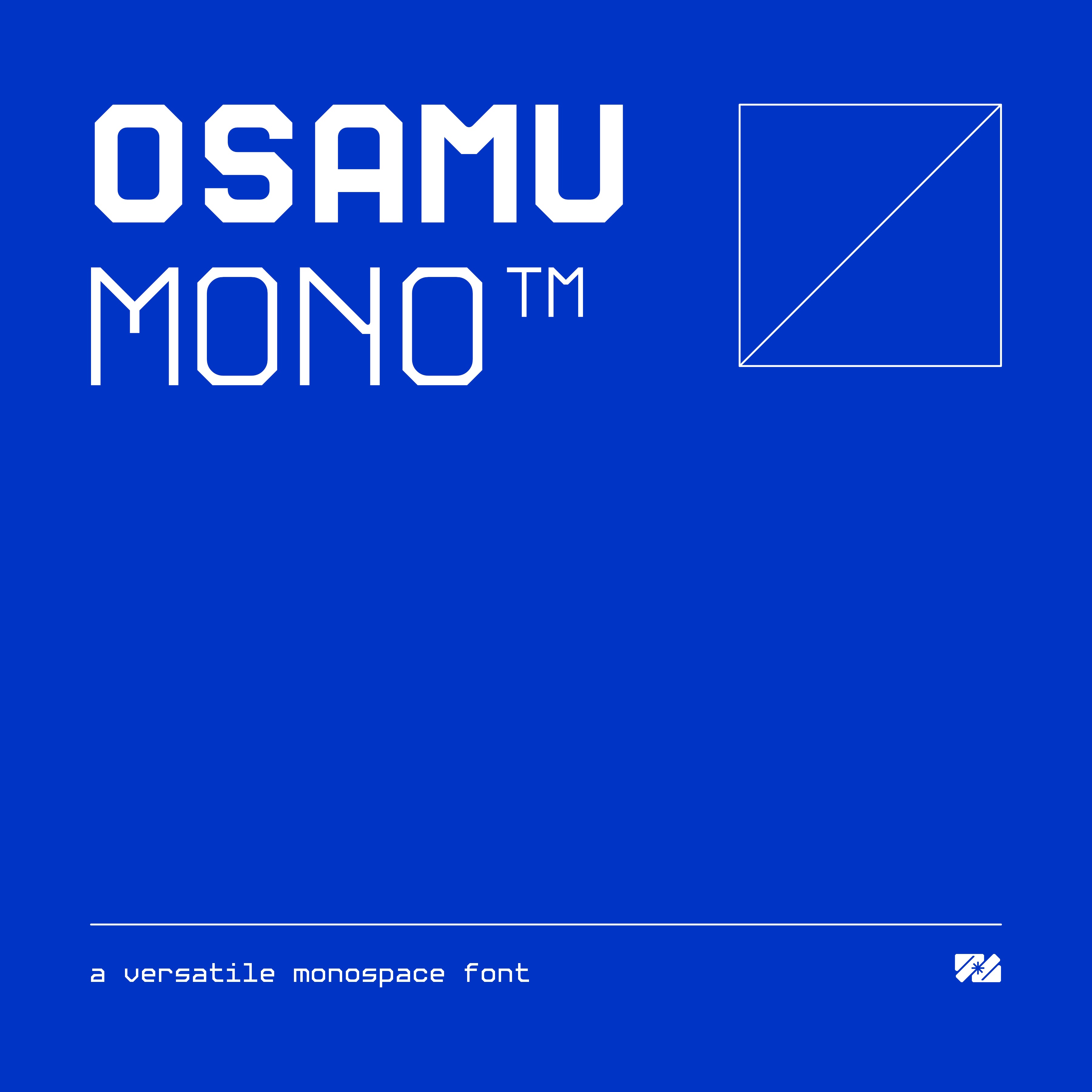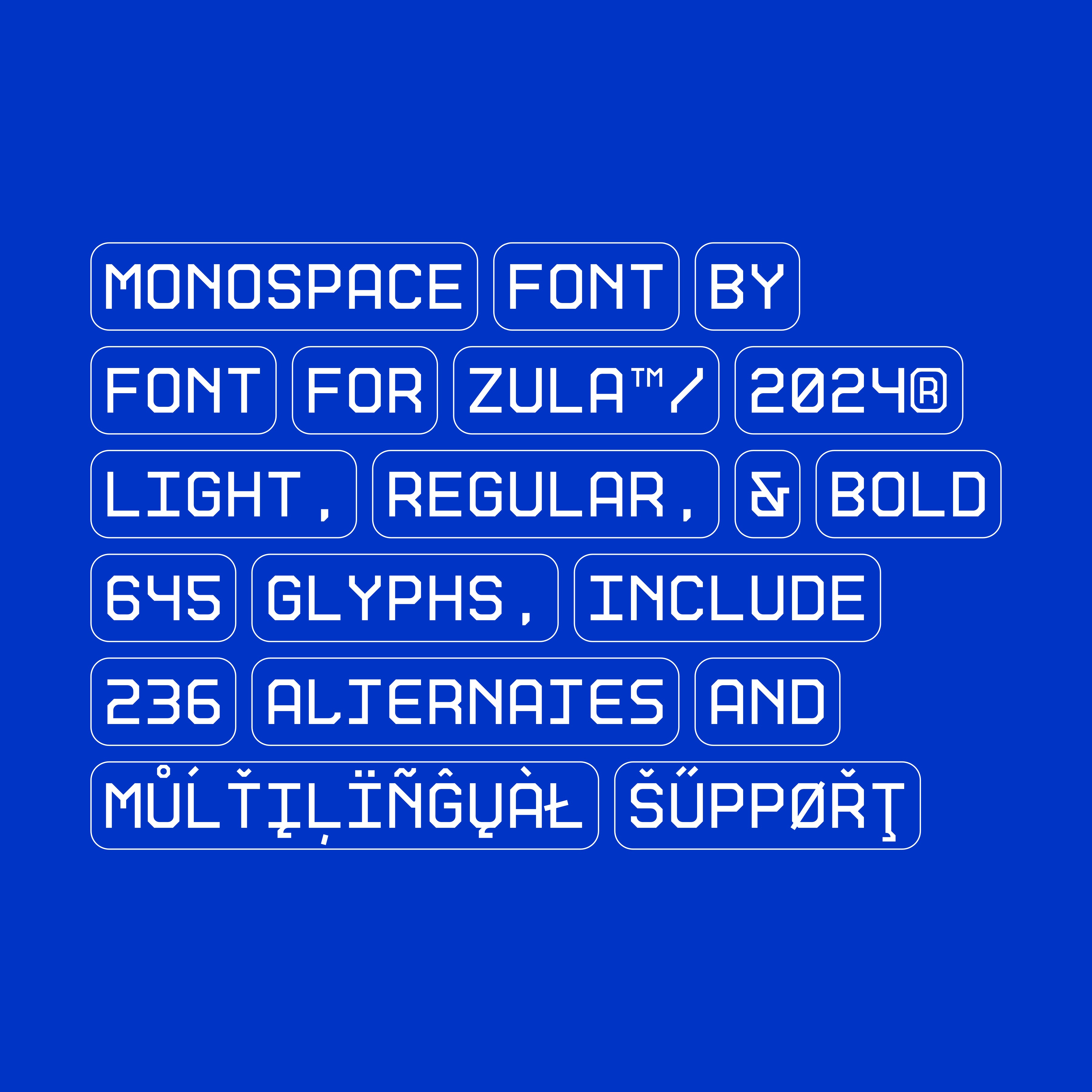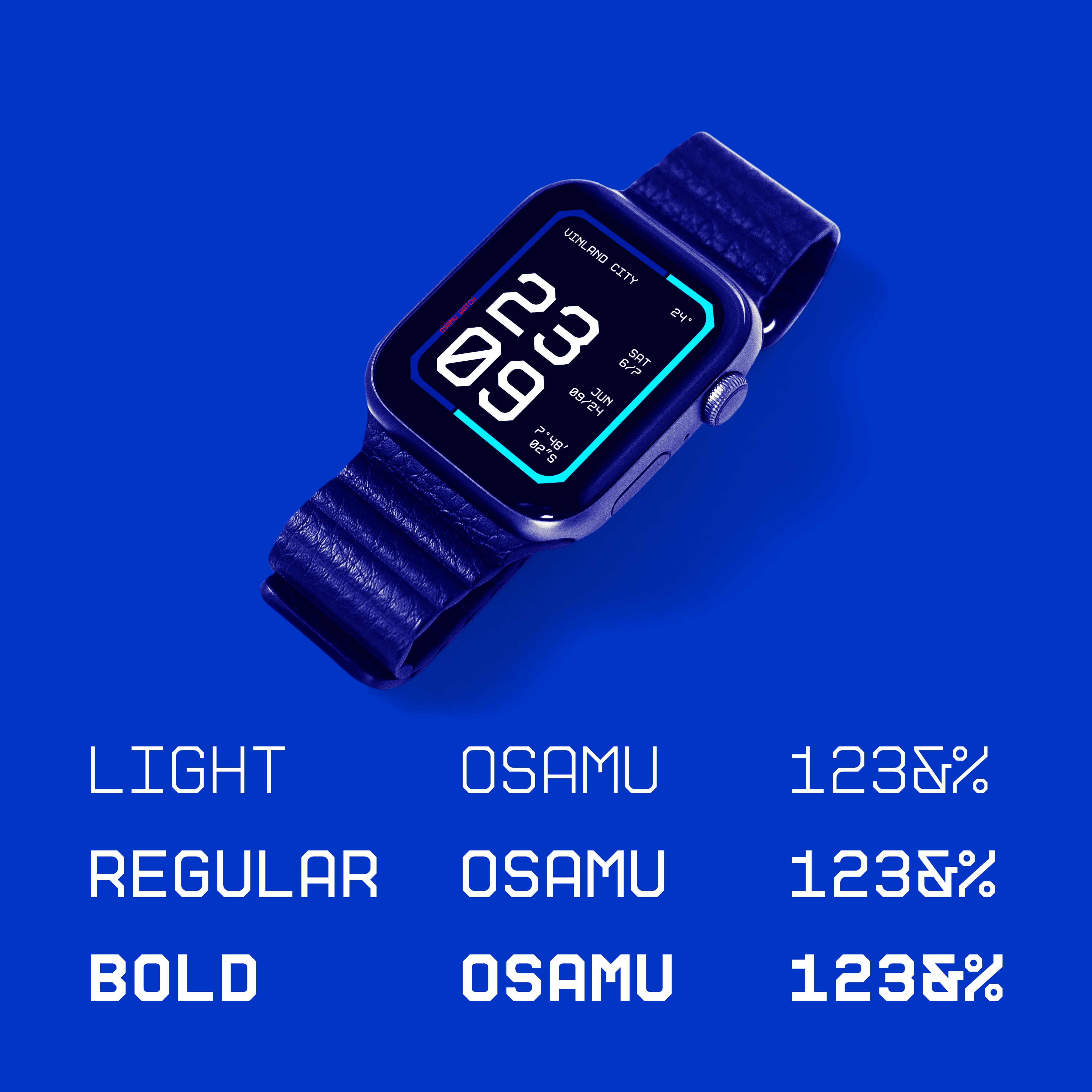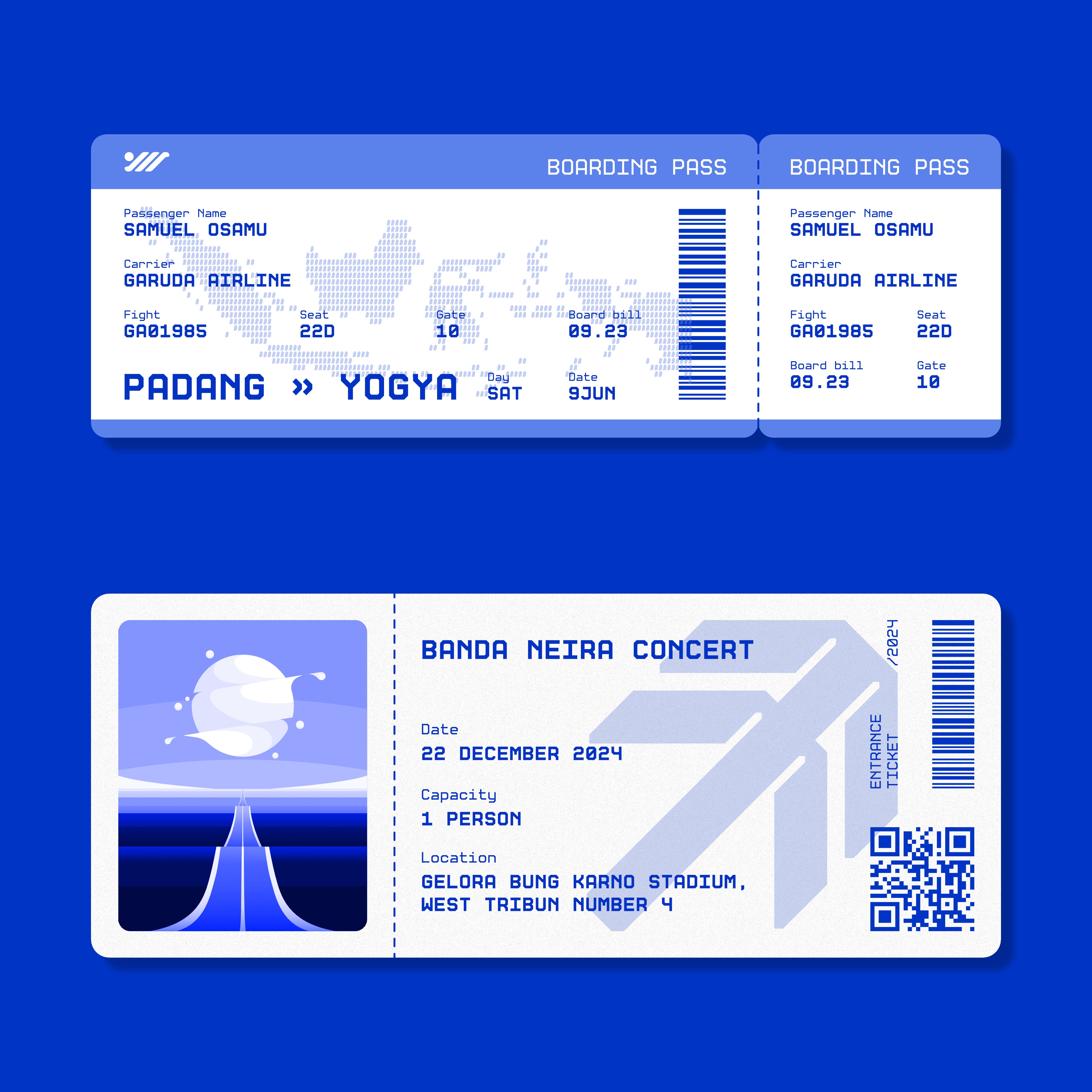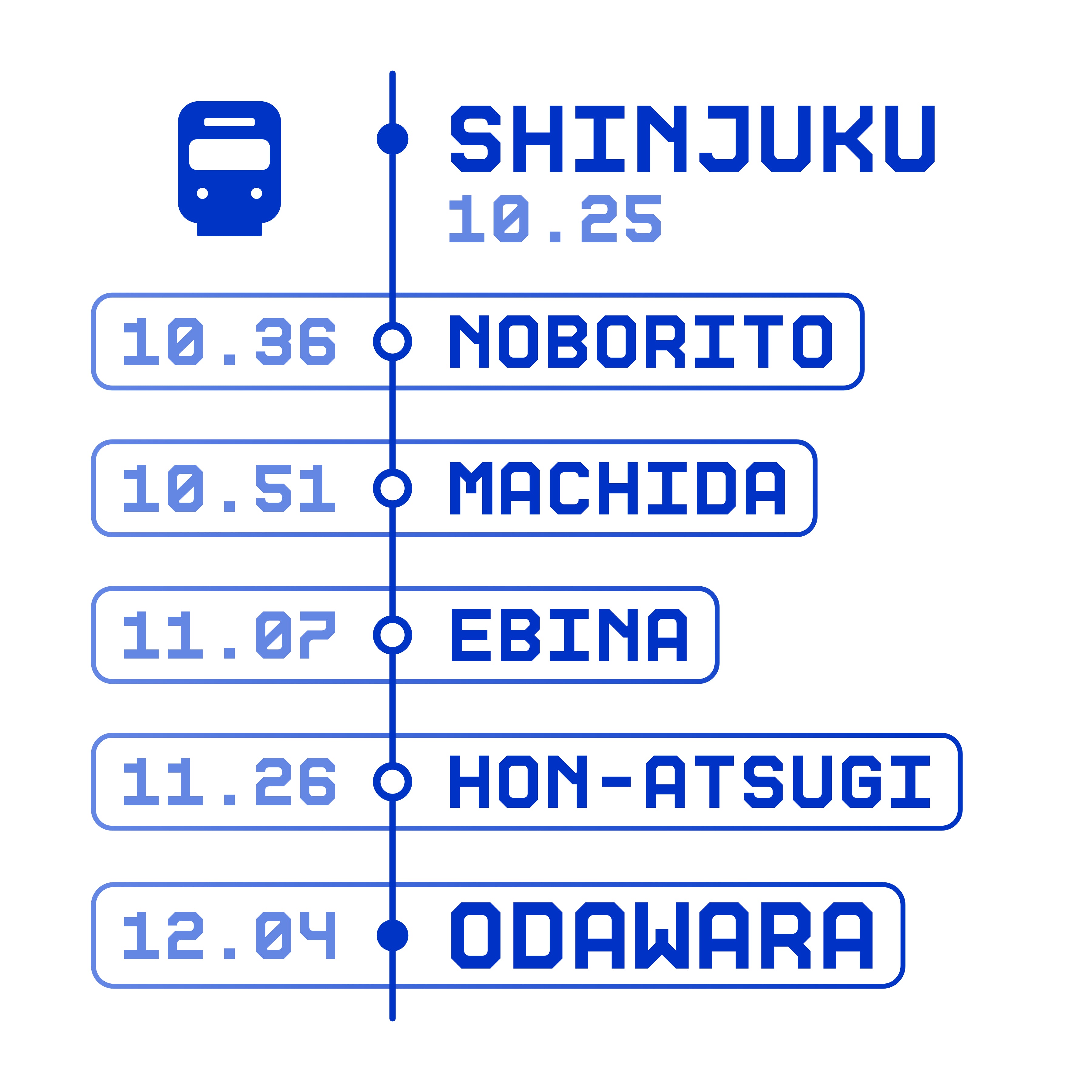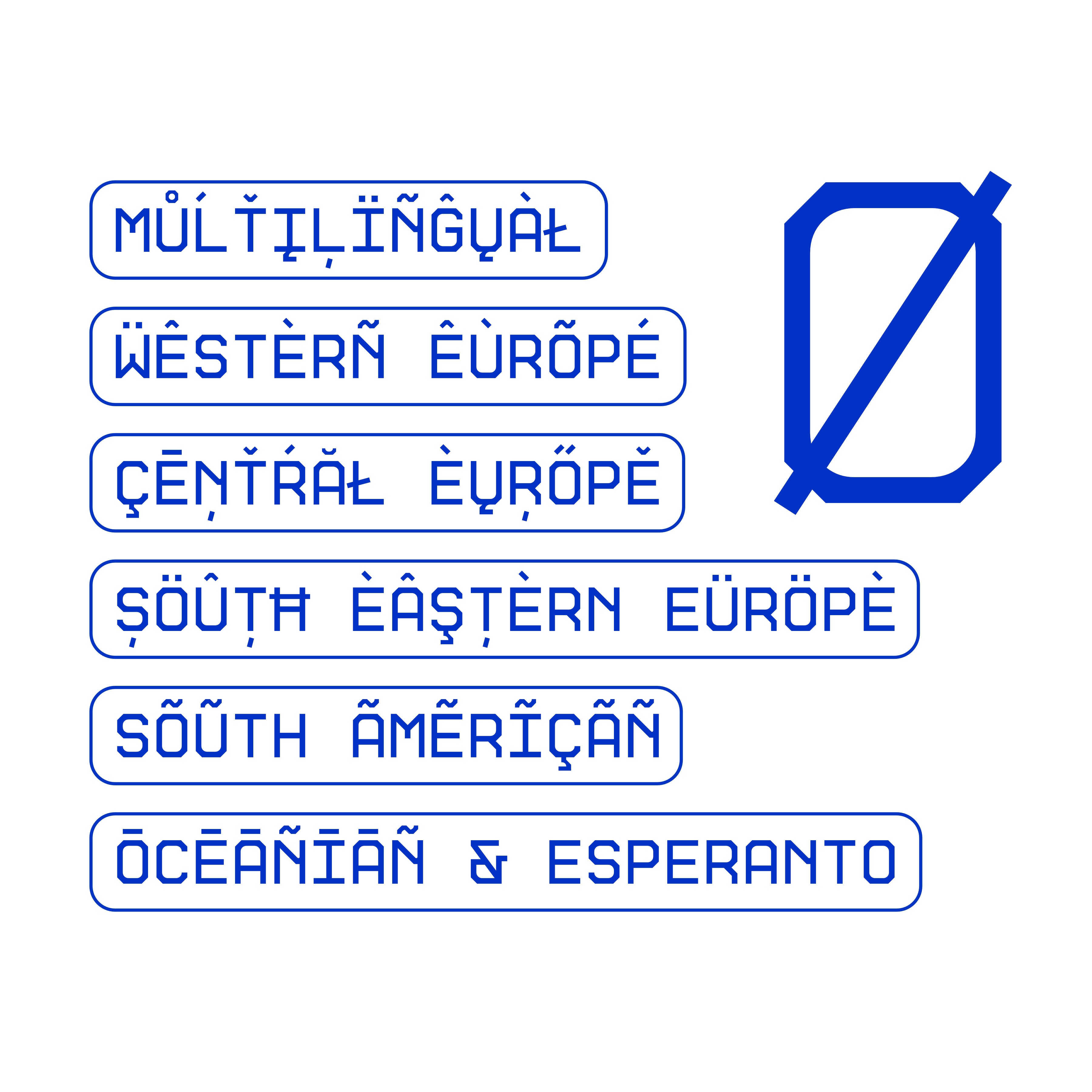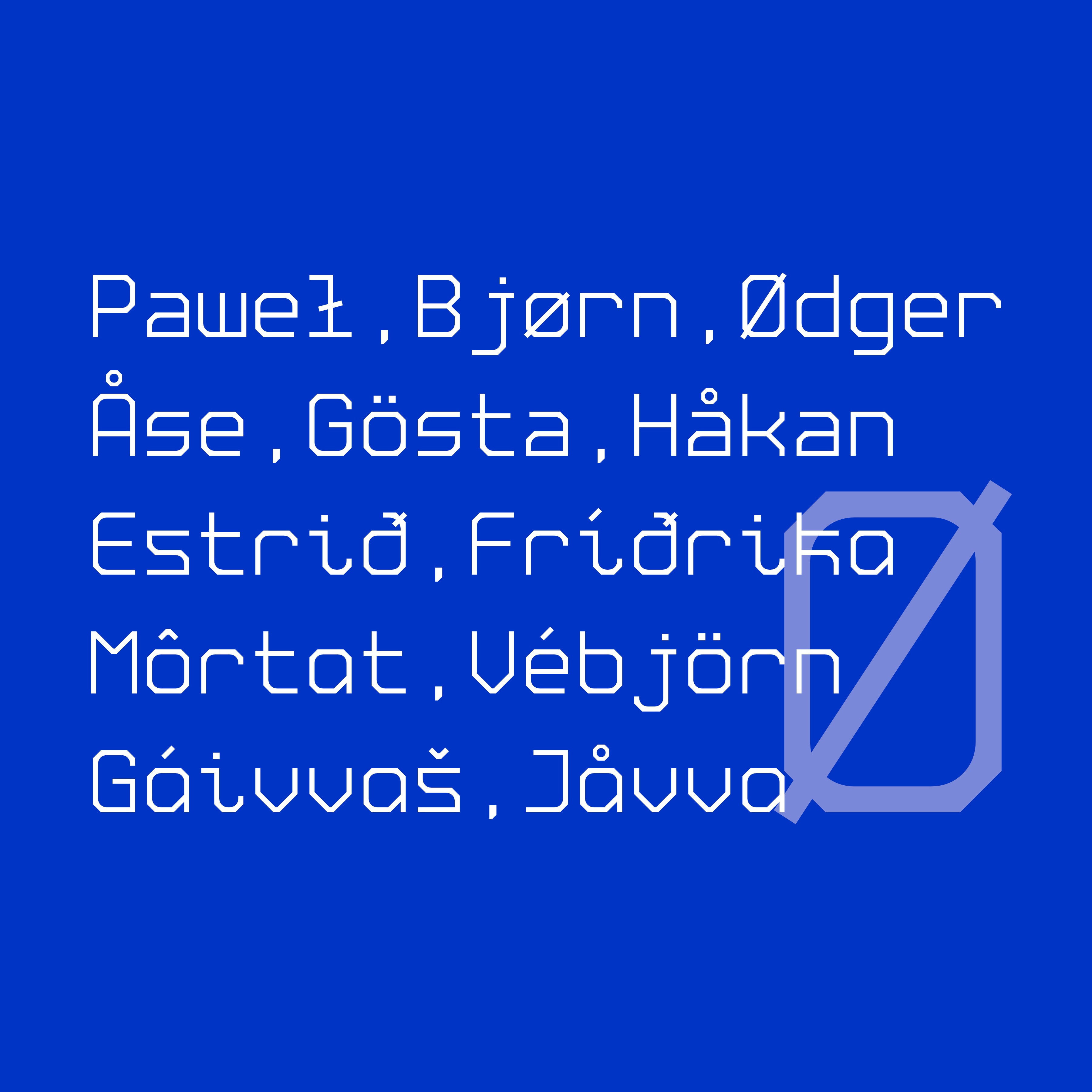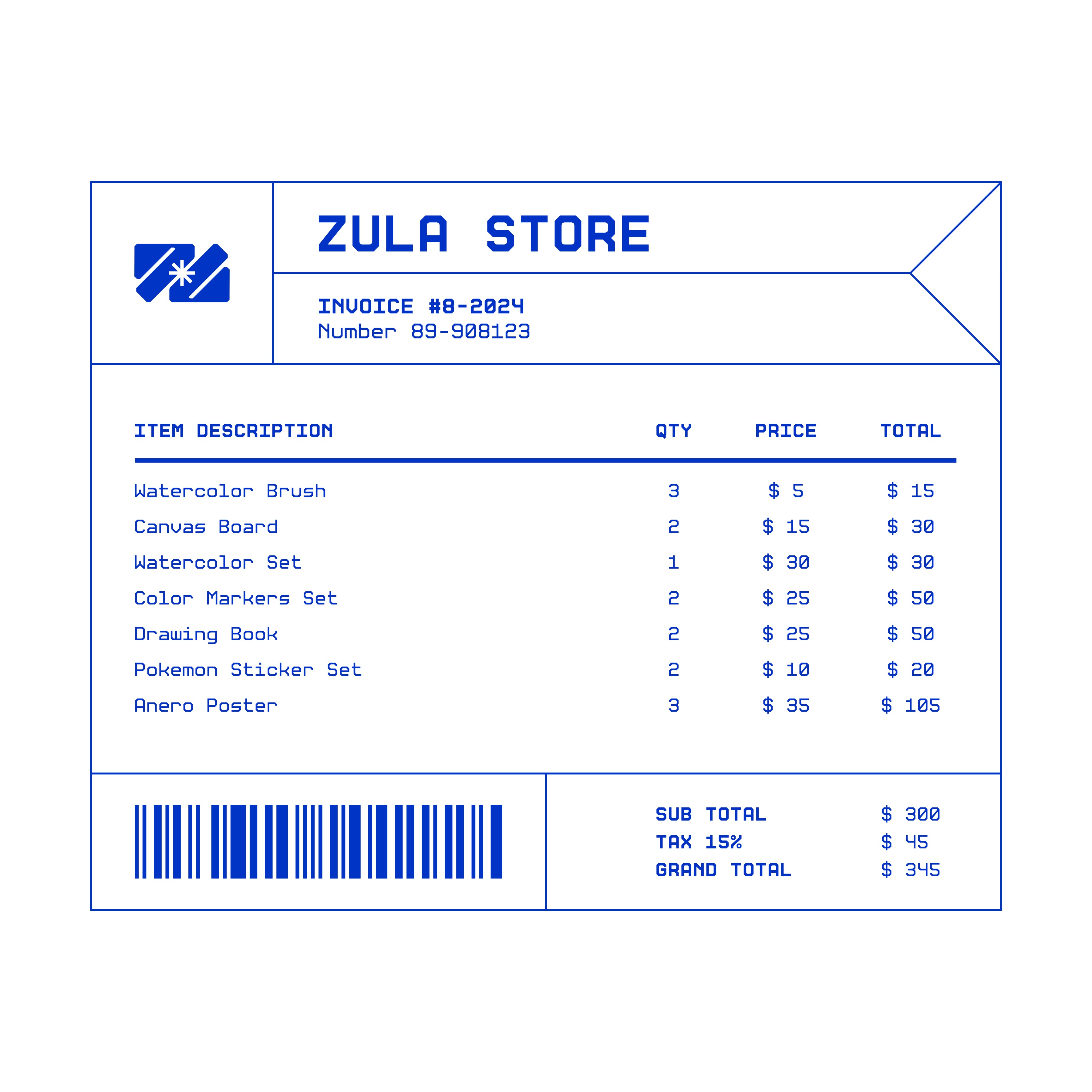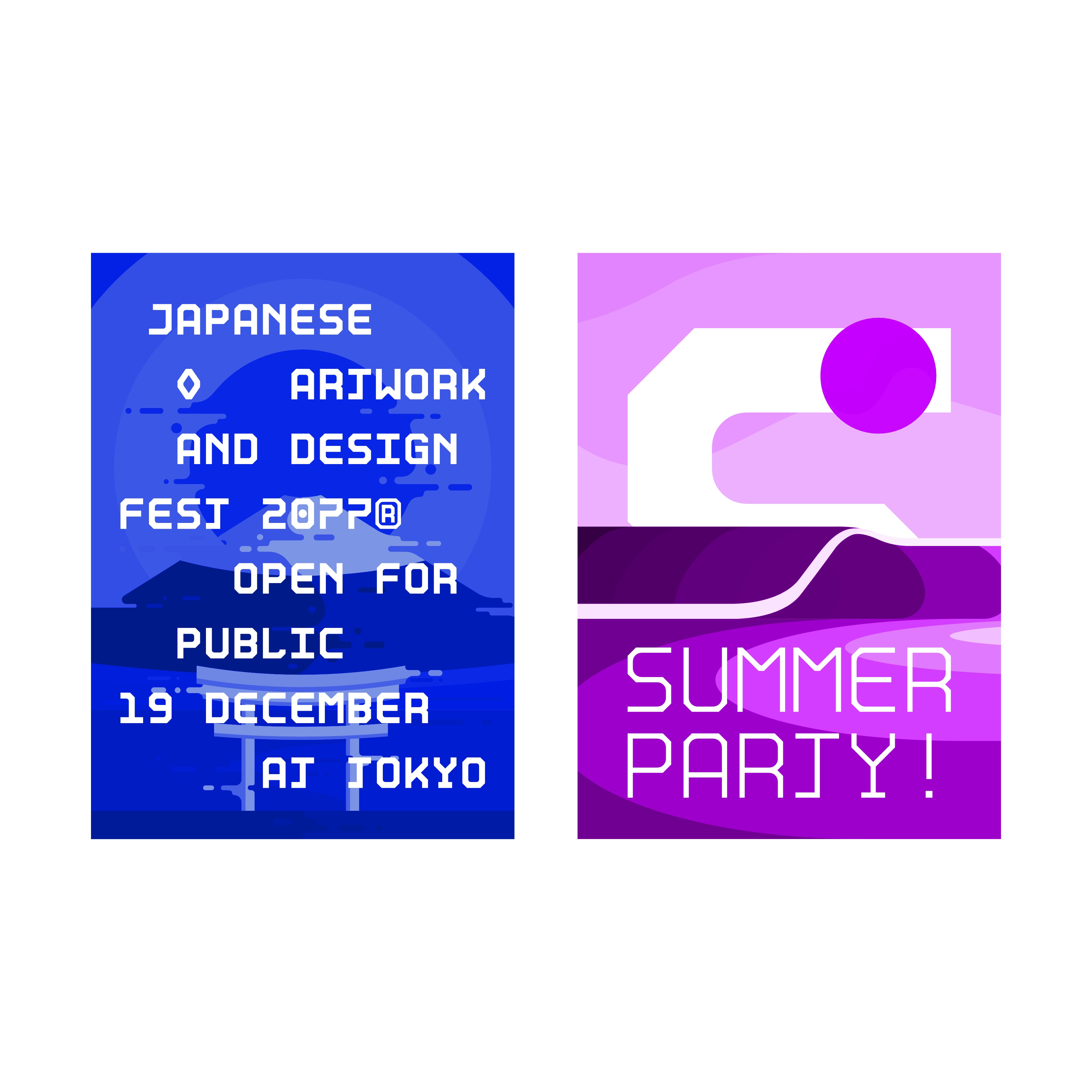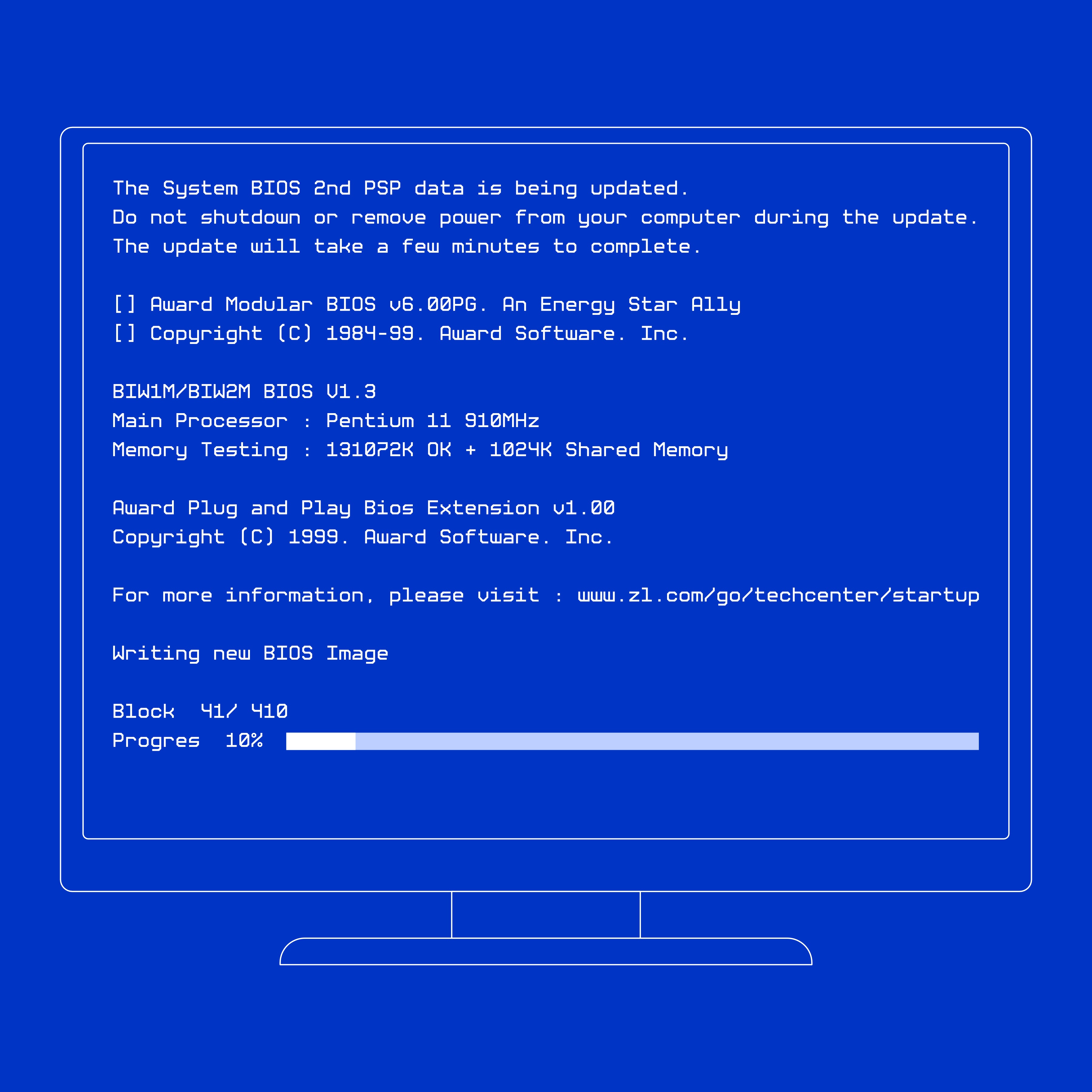
Osamu Monospaced Typeface
Osamu Monospace has a simple basic shape with a combination of rounded corners on
the inside and straight on the outside. This unique font shape and good readability also
means that Osamu Mono can be used for various purposes such as displays, titles, text,
coding, posters, and many other functions.
Osamu Mono also provides alternative letter forms, numbering more than 200 alternates. This provides an opportunity for font users to explore combining various existing letter shapes. Osamu Mono has three weight style variants; Light, Regular, and Bold. With a total number of glyphs of more than 600.
OSAMU MONO Includes :
• 3 Weight Style : Light, Regular, and Bold
• Multilingual Languange support ; Western Europe, Central Europe, South Eastern
Europe, South American, Oceanian, and Esperanto
• 128 UPPERCASE
• 121 Uppercase Alternates
• 130 Lowercase
• 87 Lowercase Alternates
• 10 Numeral
• 11 Numeral Alternates
• 2 Ligature, and 4 Ligature Alternates